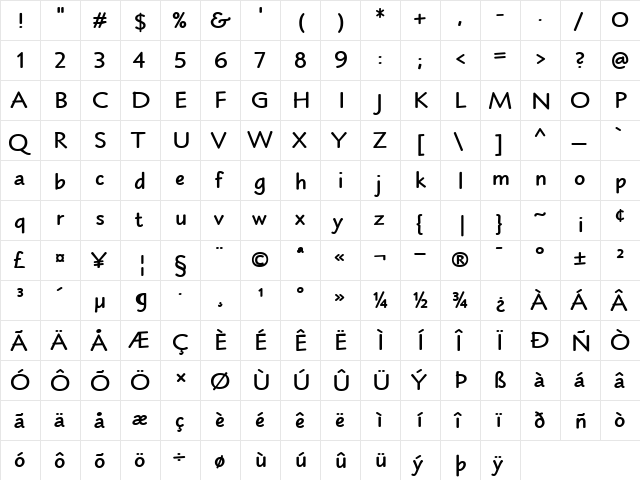
Blueprint MT Bold
Design Context for Blueprint MT Typeface
Blueprint MT is a composed and adaptable typeface that performs quietly and consistently across a wide range of design contexts. Its bold stroke weight gives it real presence on the page.